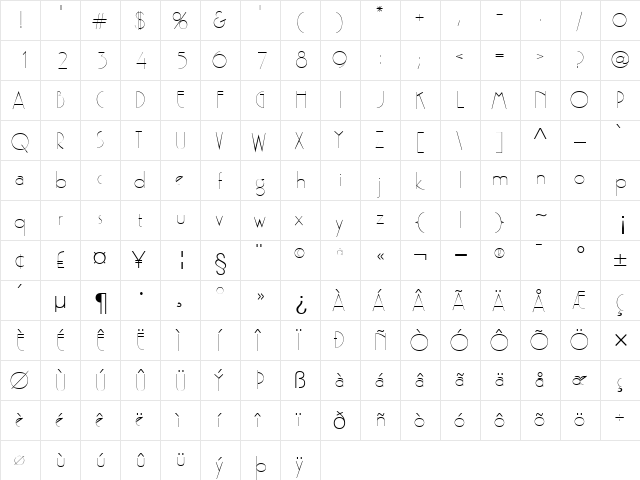
Zelda Regular
Design Context for Zelda Typeface
Zelda offers clean, dependable letterforms without strong stylistic allegiance, making it a practical choice for designers who need flexibility.